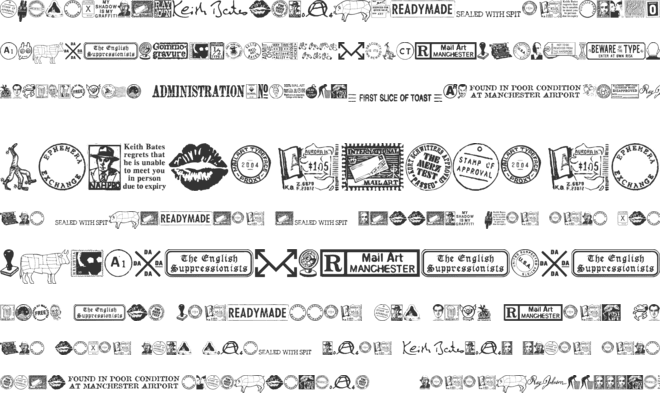
MailArt Graphics Font Family
This picture font is made up of symbols, images and stamps from the mailart network and Keith Bates’s scrapbook. This font is free for personal use; commercial copyright is retained by artists named in the ReadMe documentation.